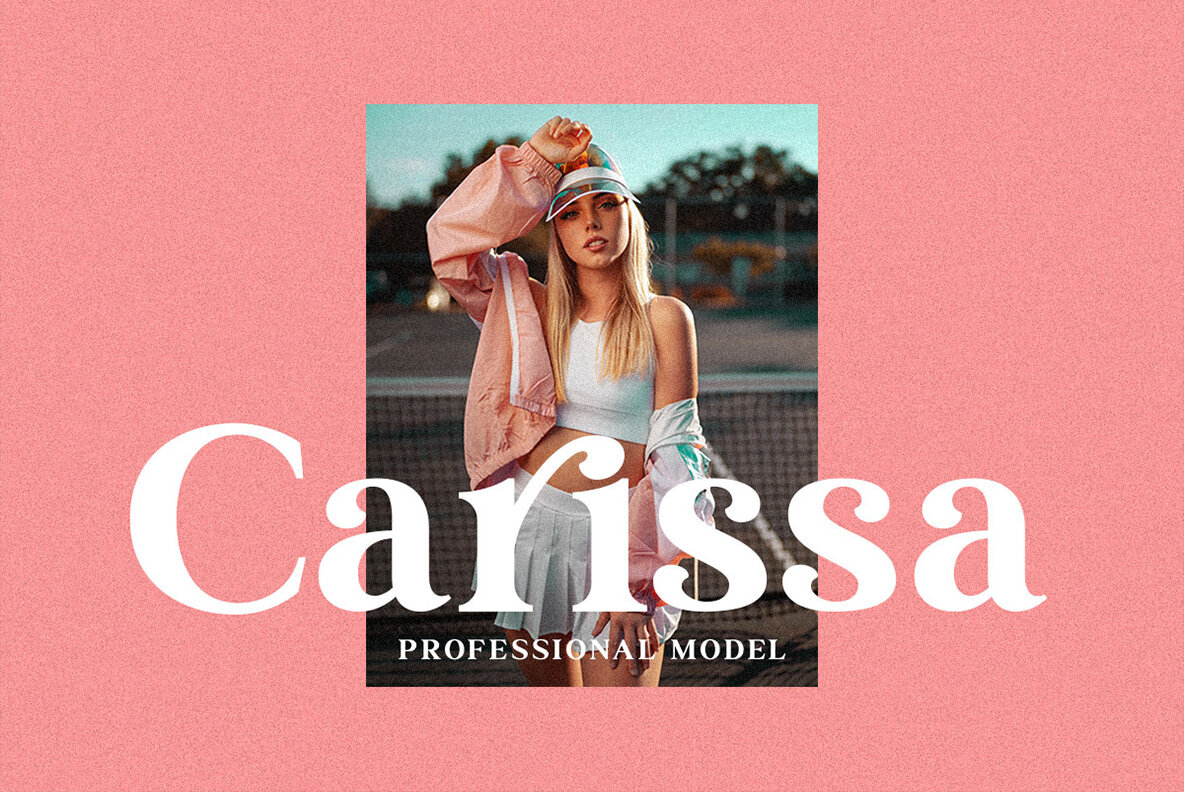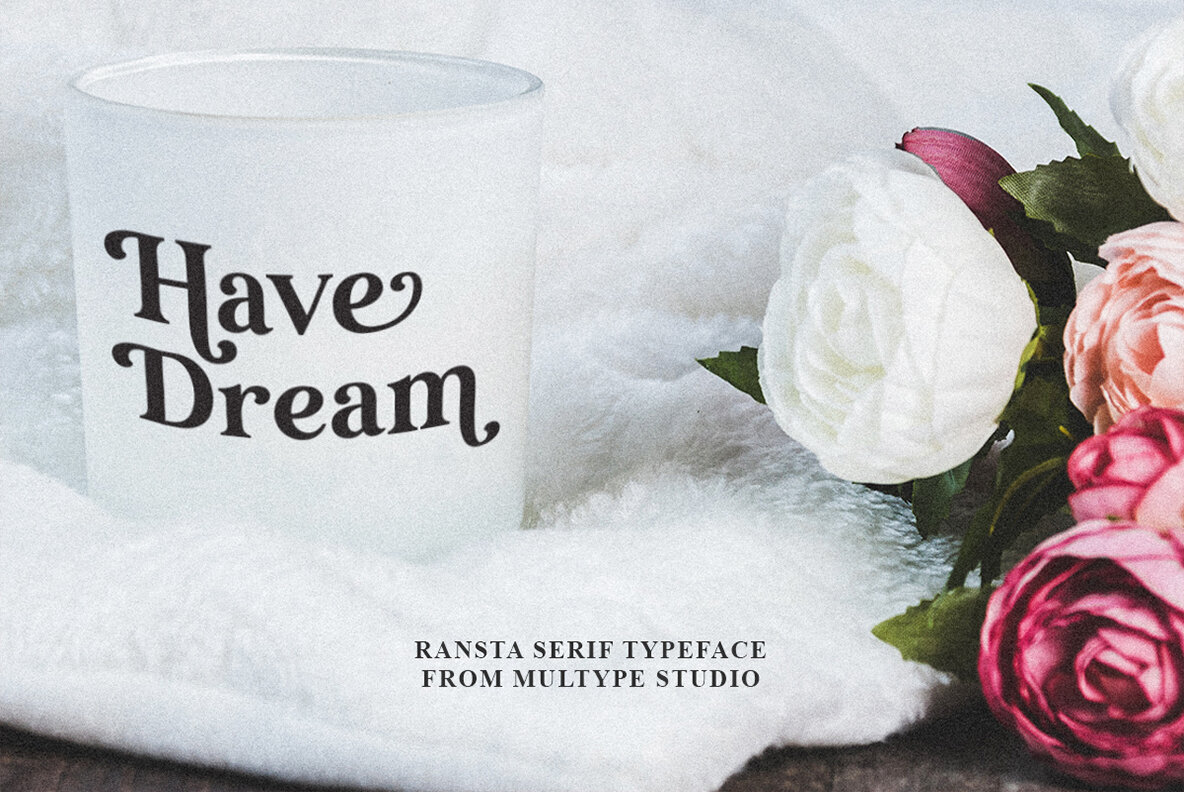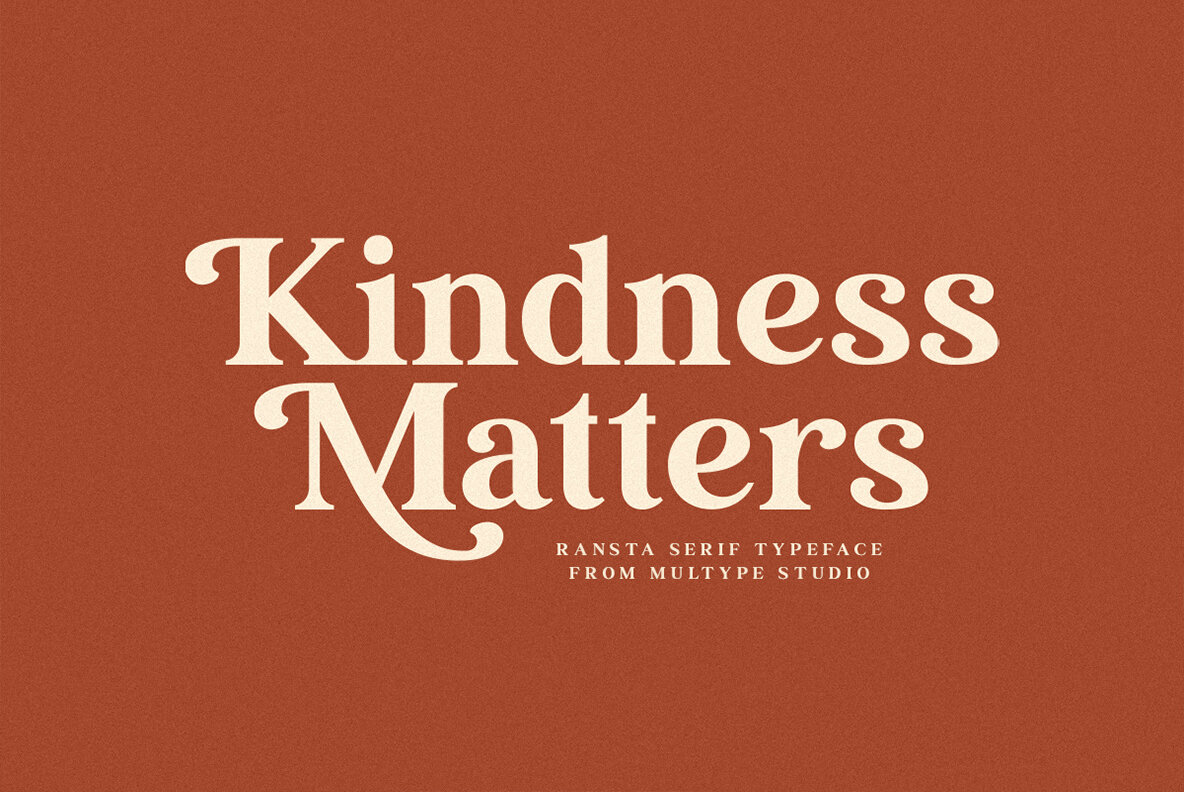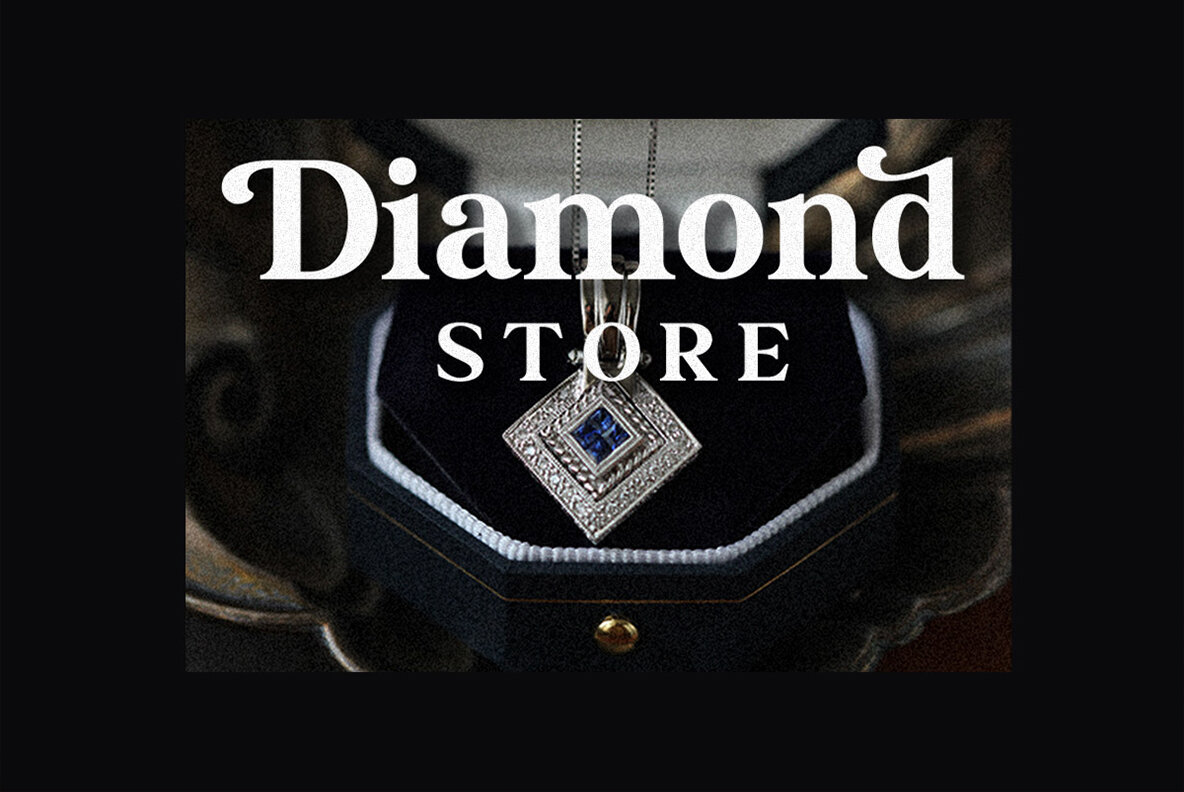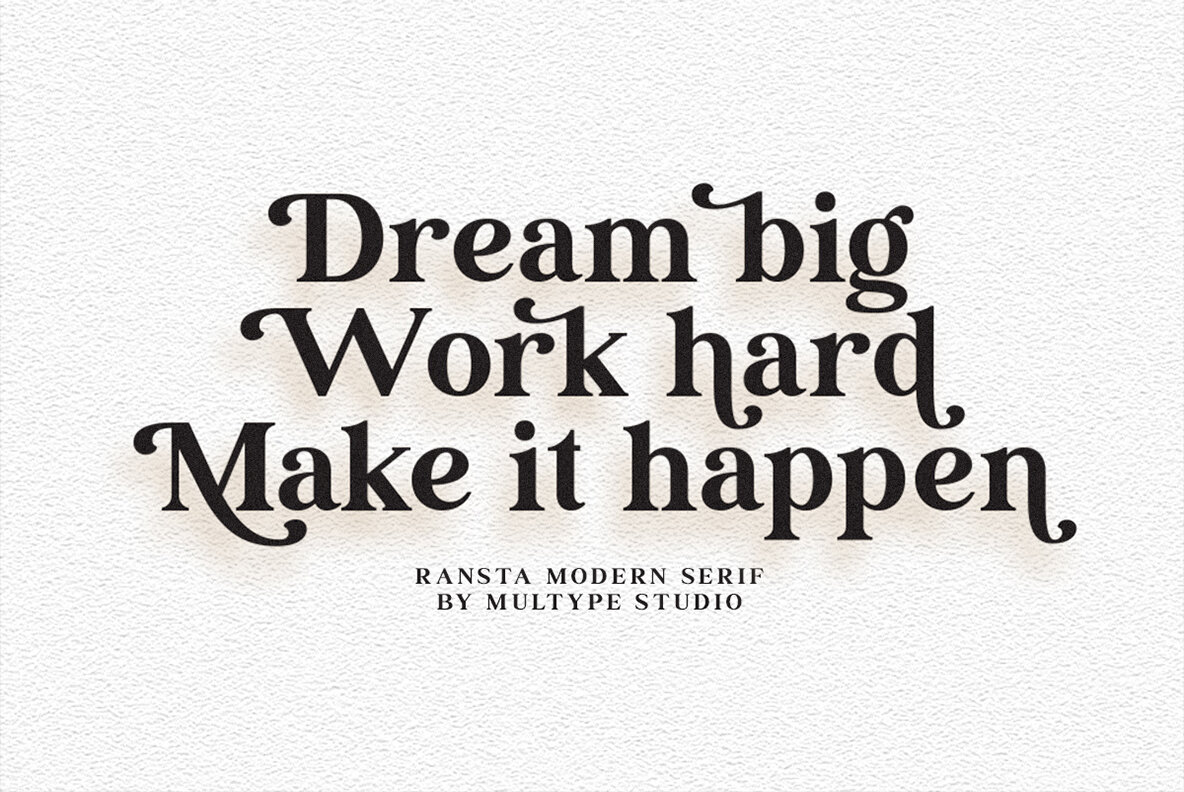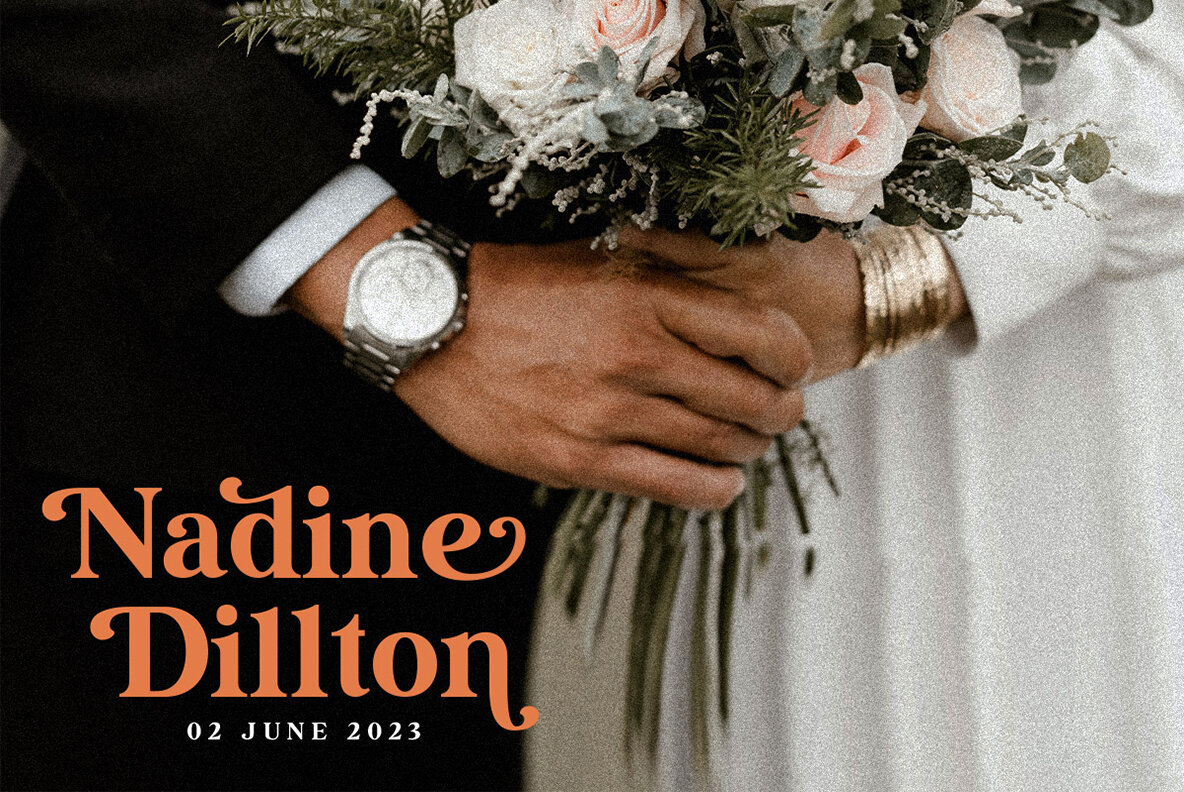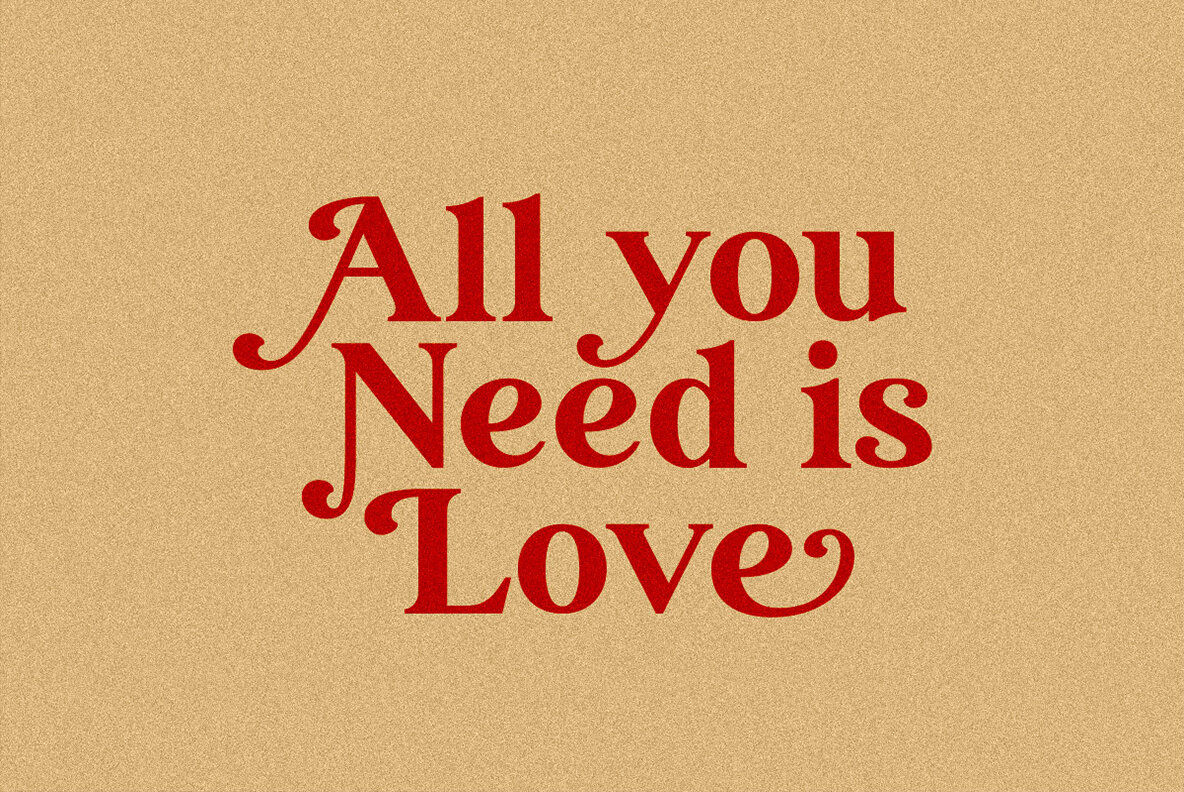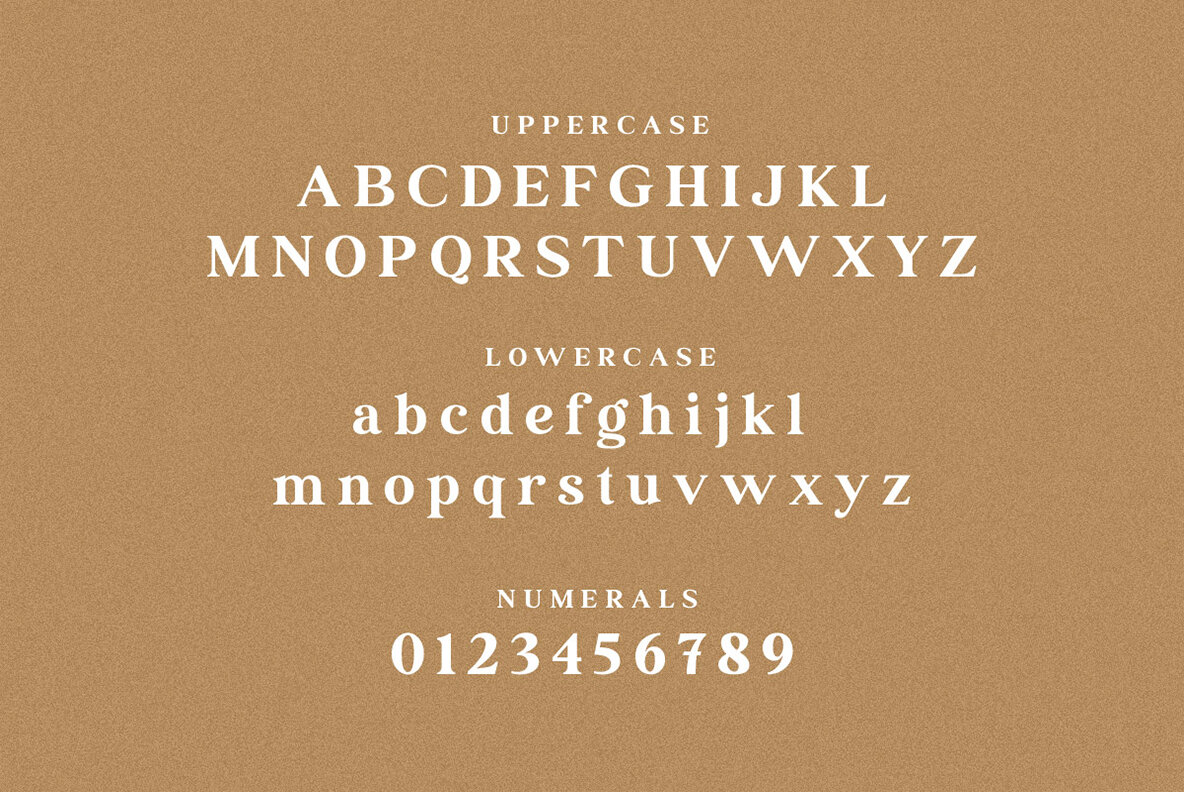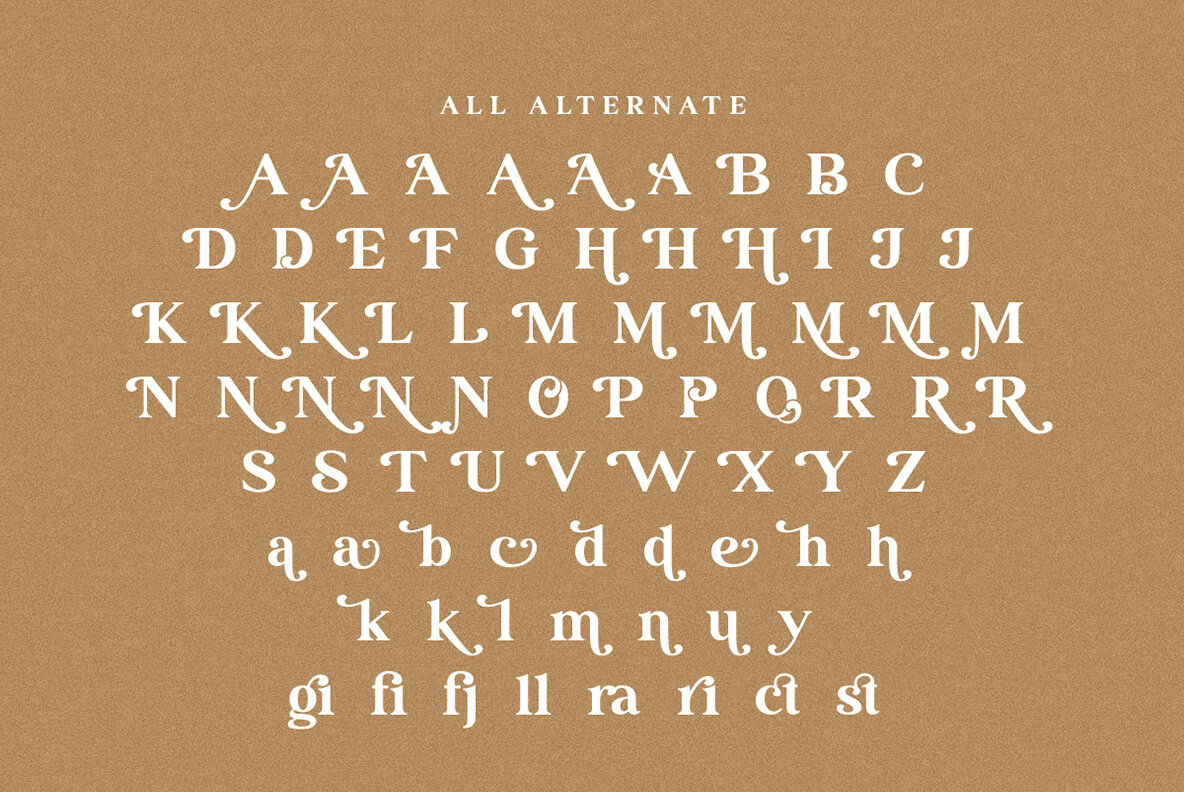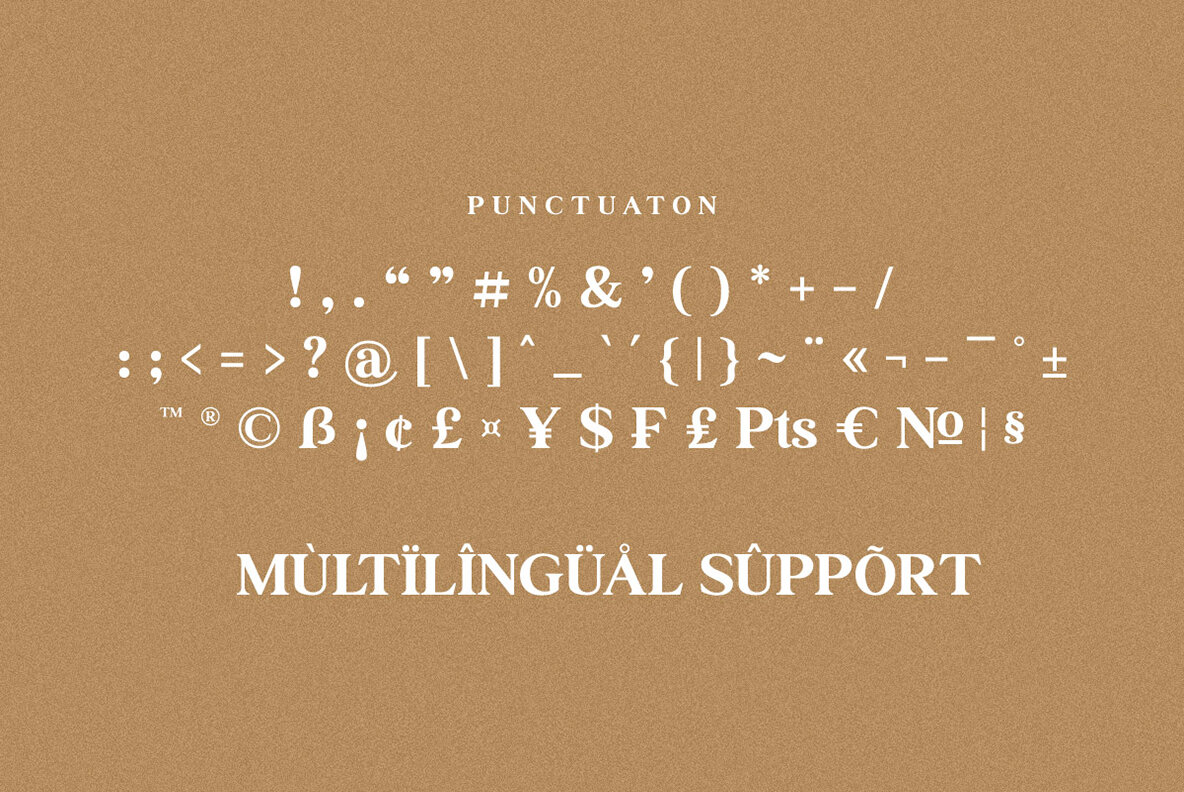
Ransta Font
Ransta
Ransta is a chic,classy, and modern serif font with many alternates character to access in OpenType features. This font is perfect for branding, logos, social media, advertisements, product packaging, watermark, invitation, stationery, tshirt, prints, posters and more.
Uppercase & Lowercase
Stylistic Alternate
Ligature
Numbers & Symbols
Multilingual support